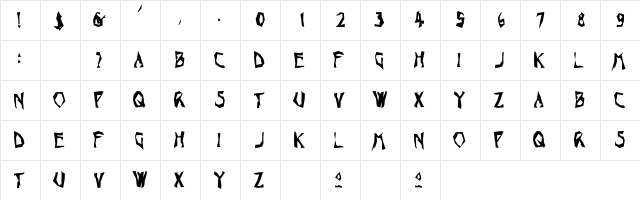
Toucan Grunge
| Style | Grunge |
Design Context for Toucan Typeface
Toucan trades polish for personality, using distressed and eroded forms to bring grit and attitude to creative work.
A strong fit for alternative music projects, graffiti-adjacent design, and anything that deliberately resists polish.
Pro Tip: Use Toucan at larger sizes where the texture and irregularity of each letterform can be clearly seen — it loses its character at small sizes.